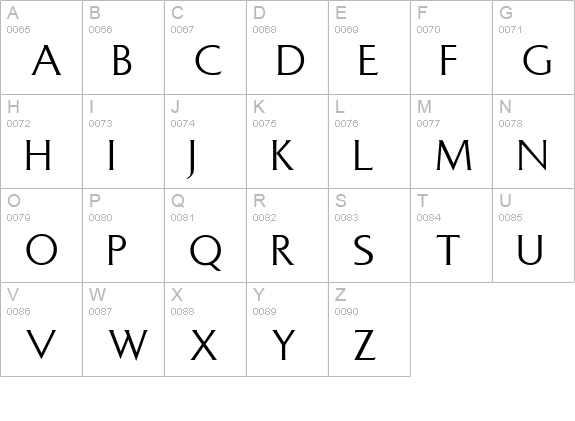
Basilea Regular is the standard, neutral variant in the Basilea typeface family \xE2\x80\x94 well suited to general body text, paragraphs, and standard typographic work.
Basilea Regular font exudes elegance and sophistication with its classic and timeless design. Its clean lines and balanced proportions make it a versatile choice for a wide range of design projects. The font strikes the perfect balance between traditional and modern, making it suitable for both print and digital applications. Basilea Regular font is perfect for creating professional-looking documents, branding materials, and web designs. Its readability and clarity ensure that your message is conveyed effectively to your audience. Whether you are designing a business card, a website, or a poster, Basilea Regular font will add a touch of sophistication to your work. Best of all, Basilea Regular font is free to download at FontsMarket.com. This means you can access this high-quality font without any cost, making it a valuable addition to your font library. Don't miss out on the opportunity to enhance your designs with the timeless elegance of Basilea Regular font. Download it today and elevate your projects to the next level.